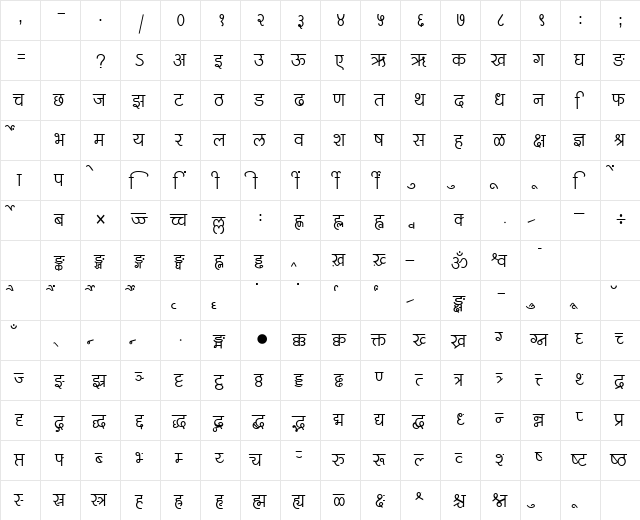
Shree-Dev-001 Regular
Design Context for Shree-Dev-001 Typeface
Shree-Dev-001 offers clean, dependable letterforms without strong stylistic allegiance, making it a practical choice for designers who need flexibility.